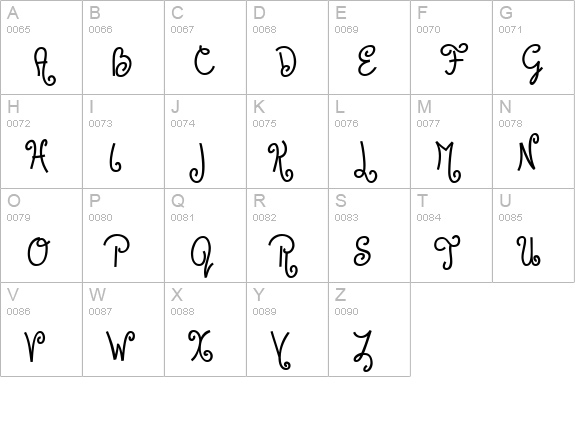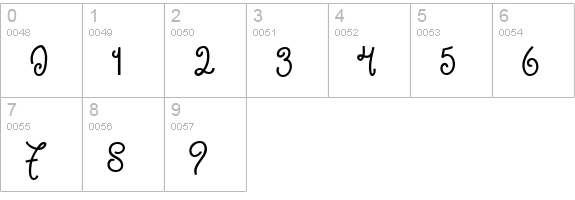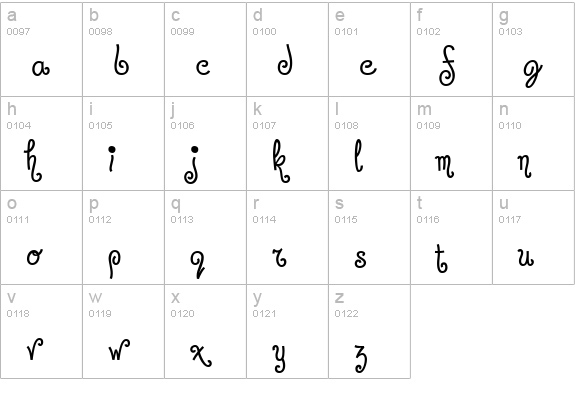
Jandles Font Details
Introducing Jandles font, a versatile and stylish typeface that is sure to make your designs stand out. With its elegant curves and modern look, Jandles is perfect for a wide range of projects, from branding to packaging to social media graphics. Featuring a unique combination of classic elegance and contemporary flair, Jandles is a font that will elevate any design project. Whether you're creating a sleek logo or designing a beautiful poster, this font is sure to impress. Best of all, Jandles is available for free download at FontsMarket.com. That's right, you can get your hands on this stunning font without spending a dime. So why wait? Download Jandles today and take your designs to the next level.